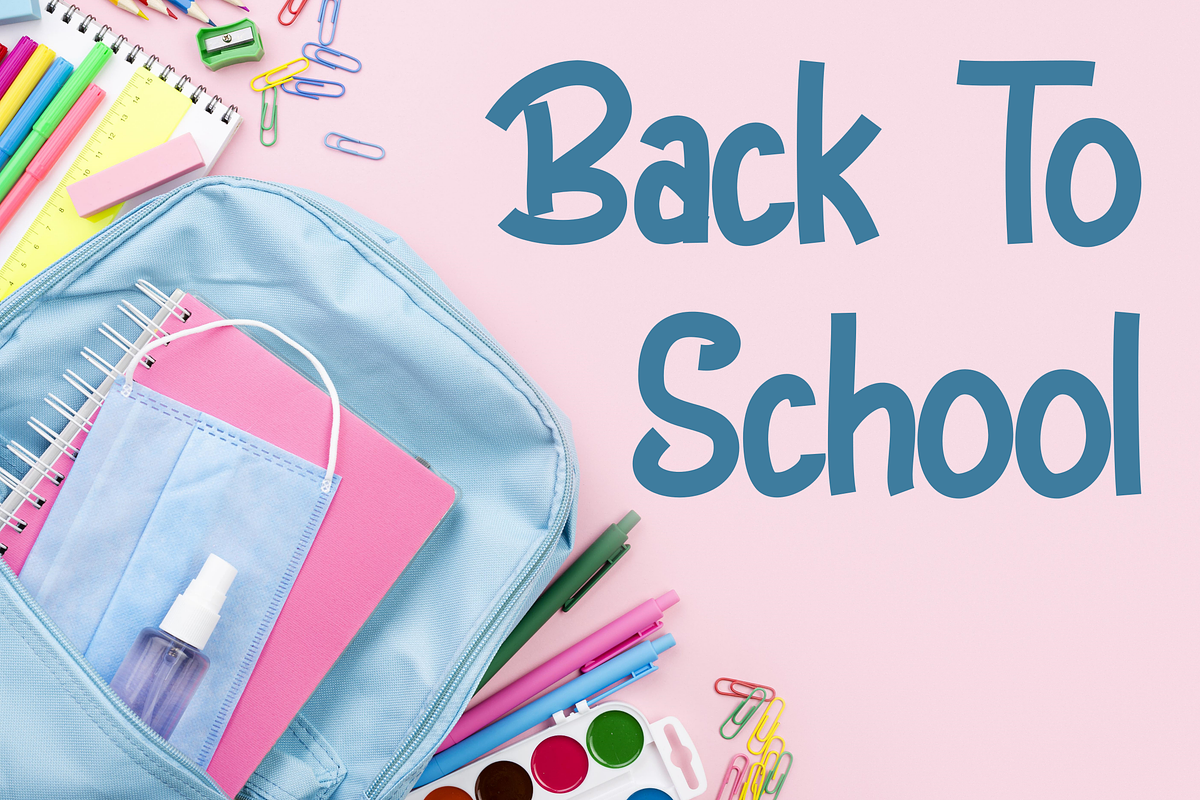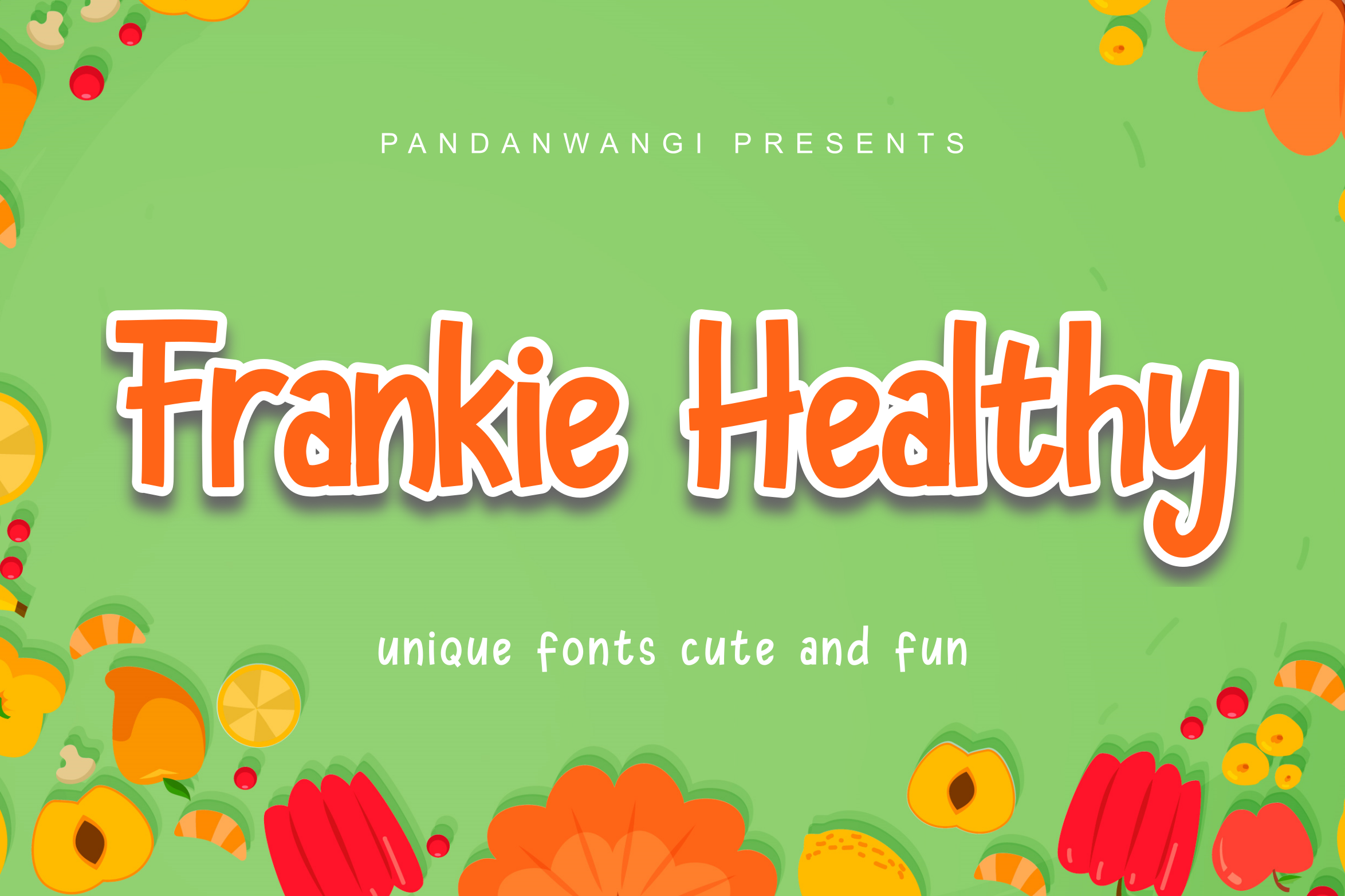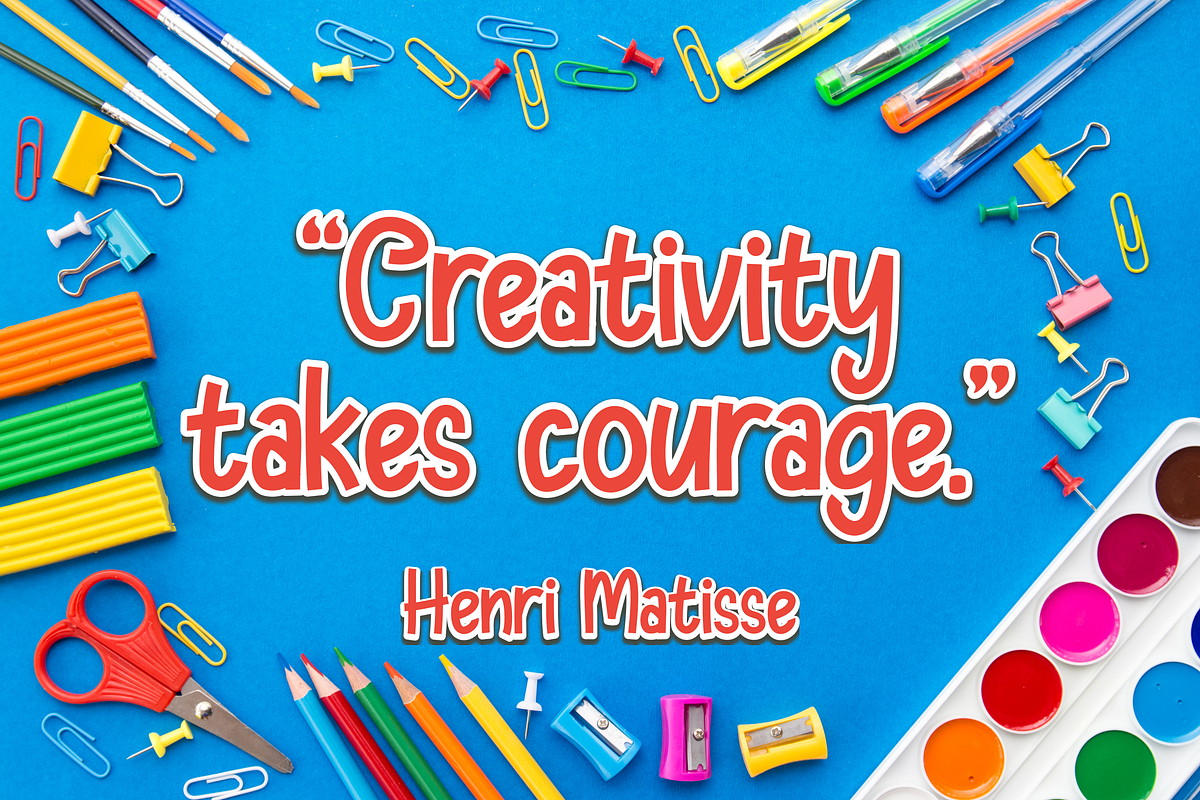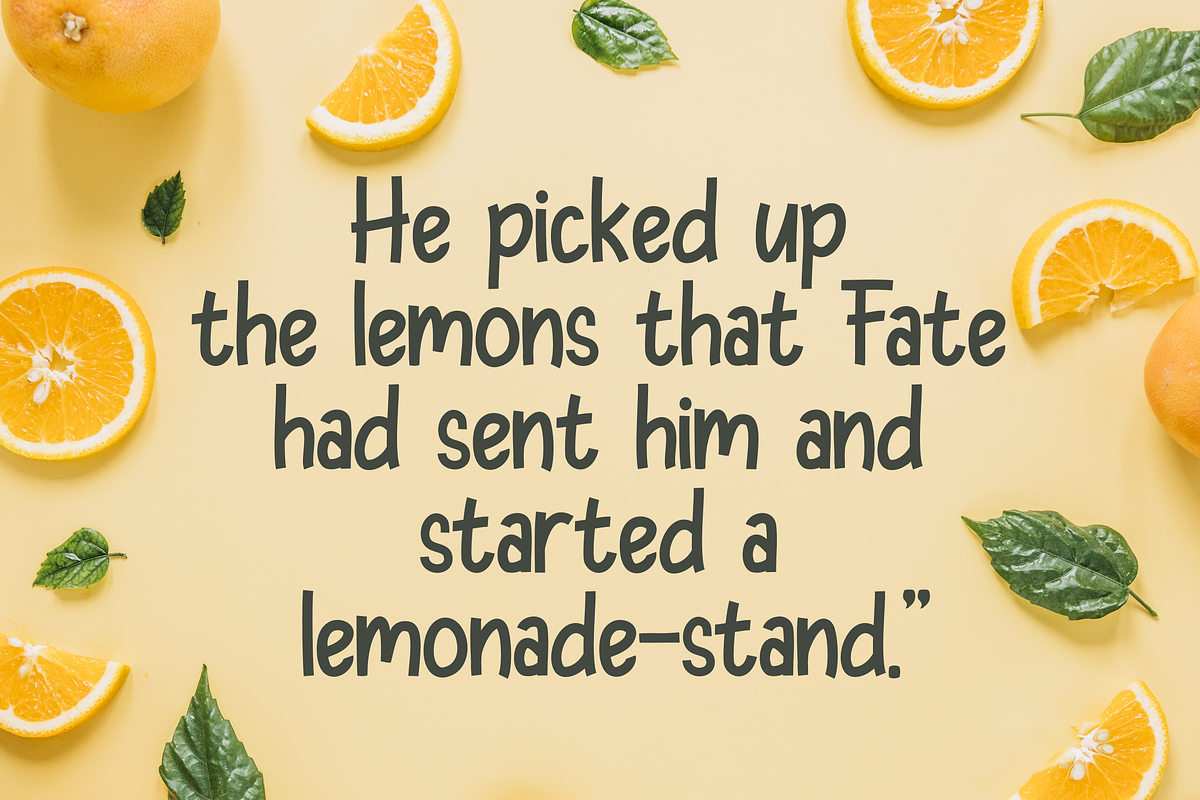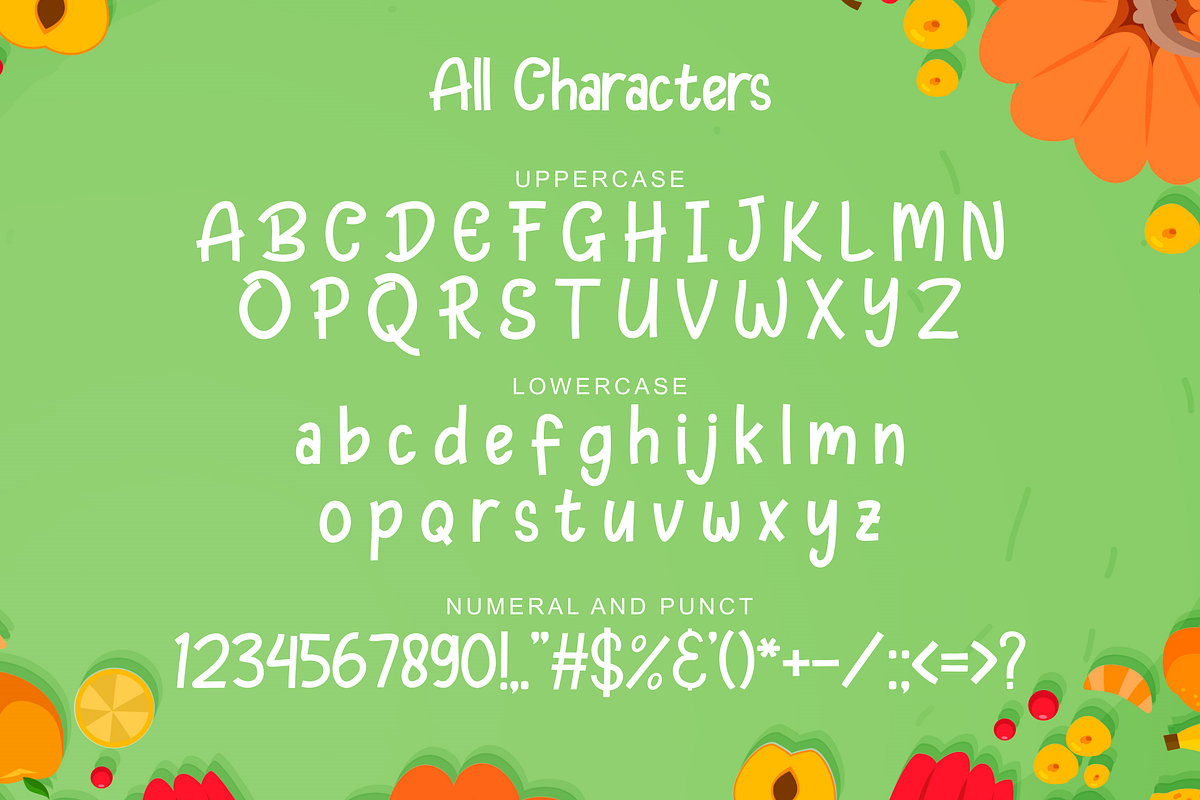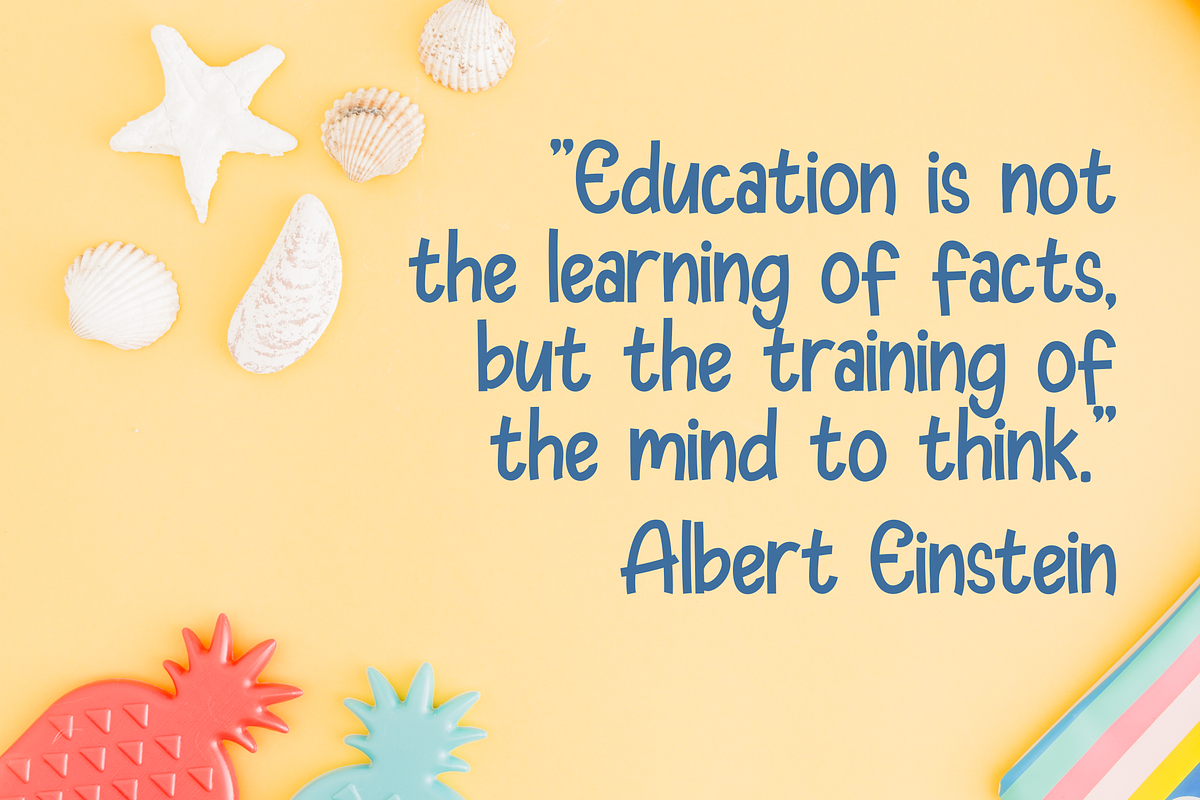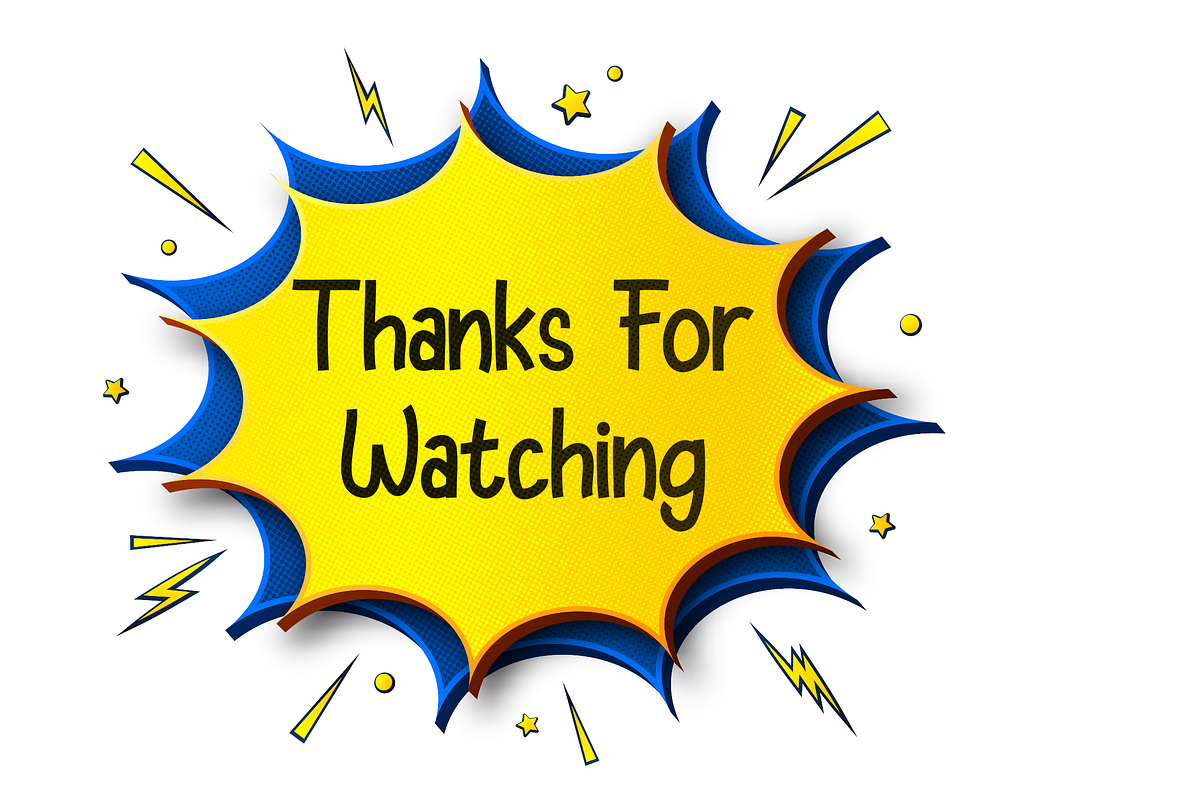
Frankie Healthy - font display
Frankie Healthy is a cute, colorful, and friendly display font. Get inspired by its authentic feel and use it to make beautiful wedding invitations, beautiful stationery art, eye-catching social media posts, and cute greeting cards. The only limit is your imagination! The only limit is your imagination!